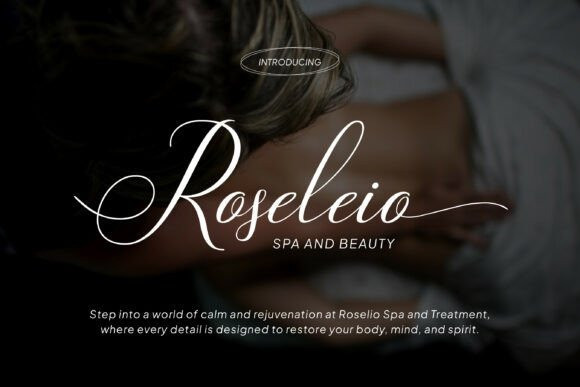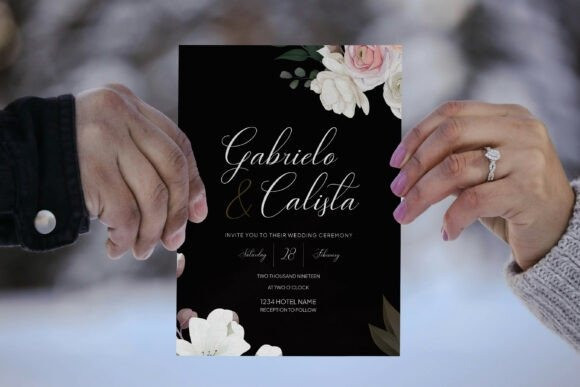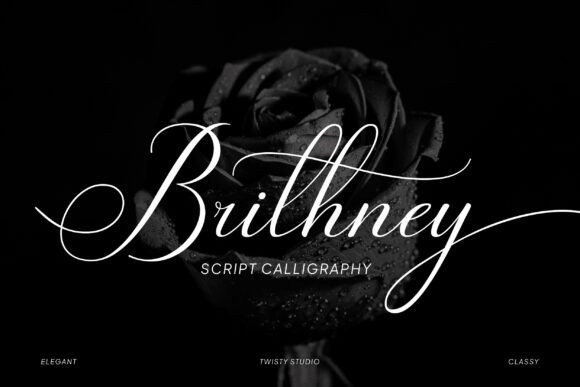
Brithney Font is a script calligraphy font designed to capture the beauty of natural handwriting with an elegant and flowing style. Featuring smooth strokes, graceful curves, and well-balanced letter connections, Brithney creates a soft and refined typographic appearance.Inspired by modern calligraphy, this font brings a sense of sophistication and charm while maintaining readability and versatility. Its fluid movement and delicate details make it perfect for designs that require a personal, stylish, and expressive touch.